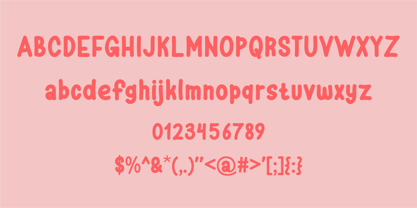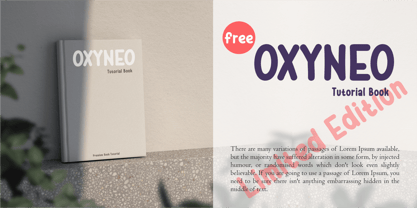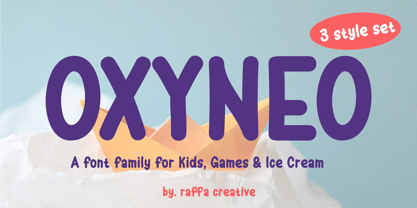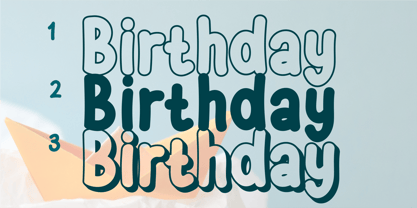
Oxyneo
by Raffa Creative
OXYNEO font is a modern sans-serif typeface designed with a clean, bold, and elegant look. Characterized by minimalist shapes, this font has balanced proportions and a highly readable structure, making it a popular choice for a variety of graphic designs and digital uses. OXYNEO is suitable for use in logo designs, websites, headlines, and branding materials because of its professional and contemporary.